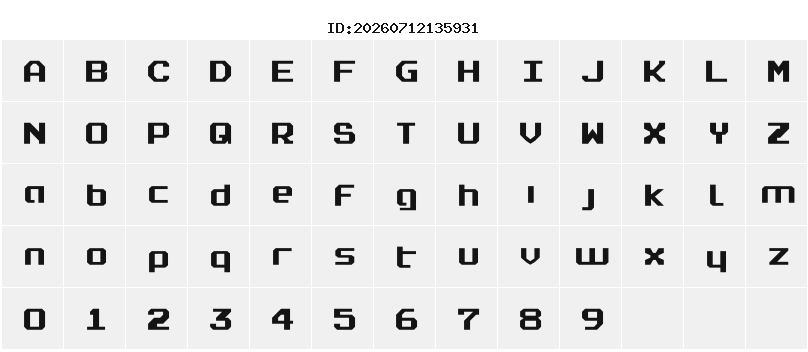
Realpolitik.ttf is a modern, elegant sans-serif font designed for ultimate readability and visual harmony. Perfect for branding, headlines, web design, and print materials.